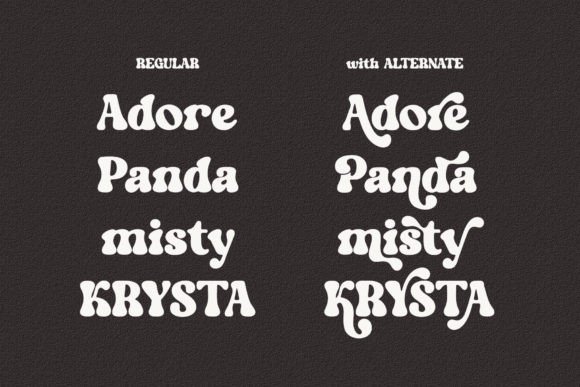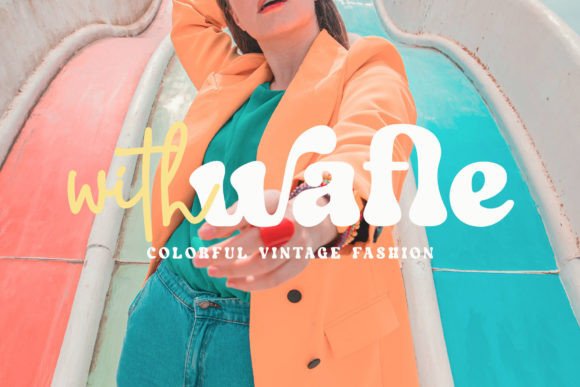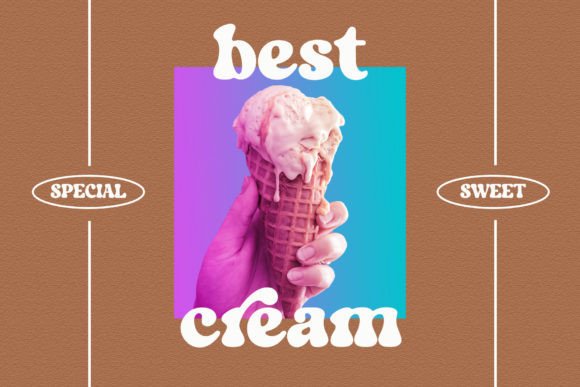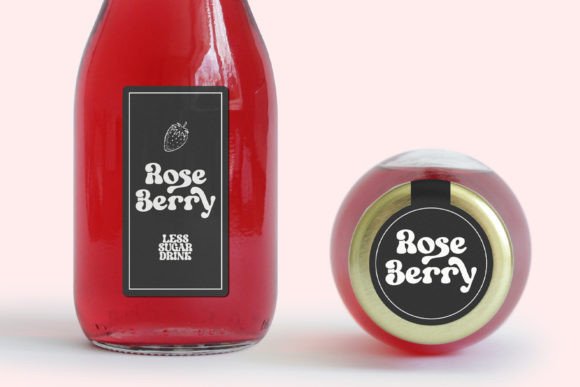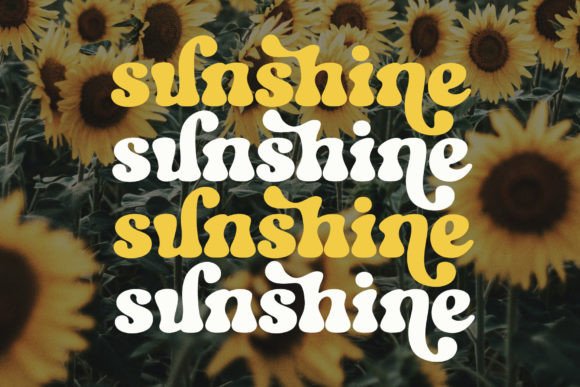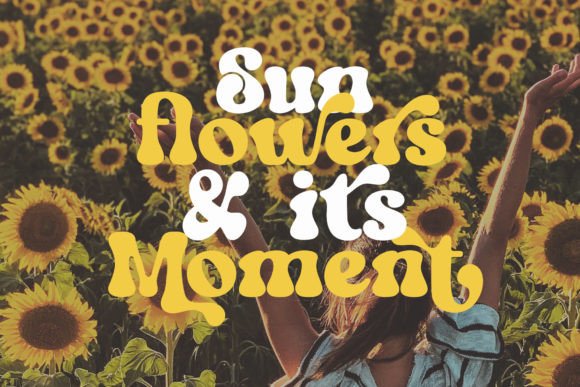
Introducing Bigskate Font: The Ultimate Retro Serif Font for Modern Designs
Are you looking for a font that adds a touch of vintage charm to your designs? Look no further than Bigskate Font, a cute serif font with a retro twist that’s perfect for bringing a nostalgic feel to your modern projects. With its unique blend of 70s and 80s style, Bigskate Font is ideal for designers and crafters seeking to add a dash of nostalgia to their work.
The Retro Charm of Bigskate Font
Bigskate Font boasts a distinctive vintage look that’s reminiscent of the 1970s and 1980s. Its serif design features elegant lines and curves that evoke a sense of nostalgia, making it perfect for projects that require a retro touch. Whether you’re designing a logo, crafting a wedding invitation, or creating a brand identity, Bigskate Font is sure to add a unique and eye-catching element to your work.
One of the standout features of Bigskate Font is its versatility. This font is suitable for a wide range of projects, including:
- Logos: Add a touch of vintage charm to your brand identity with Bigskate Font.
- Wedding Invitations: Create beautiful, nostalgic wedding invitations that will leave a lasting impression on your guests.
- Crafting: Perfect for crafters, Bigskate Font can be used to create unique and eye-catching craft designs.
- Branding: Use Bigskate Font to create a cohesive brand identity that stands out from the crowd.
- Stickers: Design fun and quirky stickers that are sure to delight.
- Sublimation: Create stunning sublimation designs that showcase your creativity.
- Quotes: Add a touch of elegance to your quotes with Bigskate Font.
Why Choose Bigskate Font?
So, why should you choose Bigskate Font for your next project? Here are just a few reasons:
- Unique Style: Bigskate Font boasts a unique and distinctive style that’s sure to set your designs apart.
- Easy to Read: Despite its vintage look, Bigskate Font is easy to read, making it perfect for body text and headlines.
- Highly Versatile: As mentioned earlier, Bigskate Font is suitable for a wide range of projects, making it a great addition to any designer’s toolkit.
- Modern Twist: Bigskate Font brings a modern twist to traditional serif fonts, making it perfect for designers looking to create something new and exciting.
Tips for Using Bigskate Font
To get the most out of Bigskate Font, here are a few tips:
- Pair with Modern Fonts: Pair Bigskate Font with modern sans-serif fonts for a striking contrast.
- Experiment with Colors: Bigskate Font looks great in a range of colors, from bold brights to muted pastels.
- Use for Headlines: Bigskate Font is perfect for headlines and titles, where its vintage charm can really shine.
- Don’t be Afraid to Get Creative: Bigskate Font is a versatile font that can be used in a wide range of creative projects, so don’t be afraid to experiment and try new things.
In conclusion, Bigskate Font is a unique and versatile serif font that’s perfect for designers and crafters looking to add a touch of vintage charm to their modern projects. With its distinctive 70s and 80s style, Bigskate Font is sure to bring a nostalgic feel to your designs. Whether you’re creating a logo, crafting a wedding invitation, or designing a brand identity, Bigskate Font is a great choice. So why not give it a try and see how it can elevate your designs?